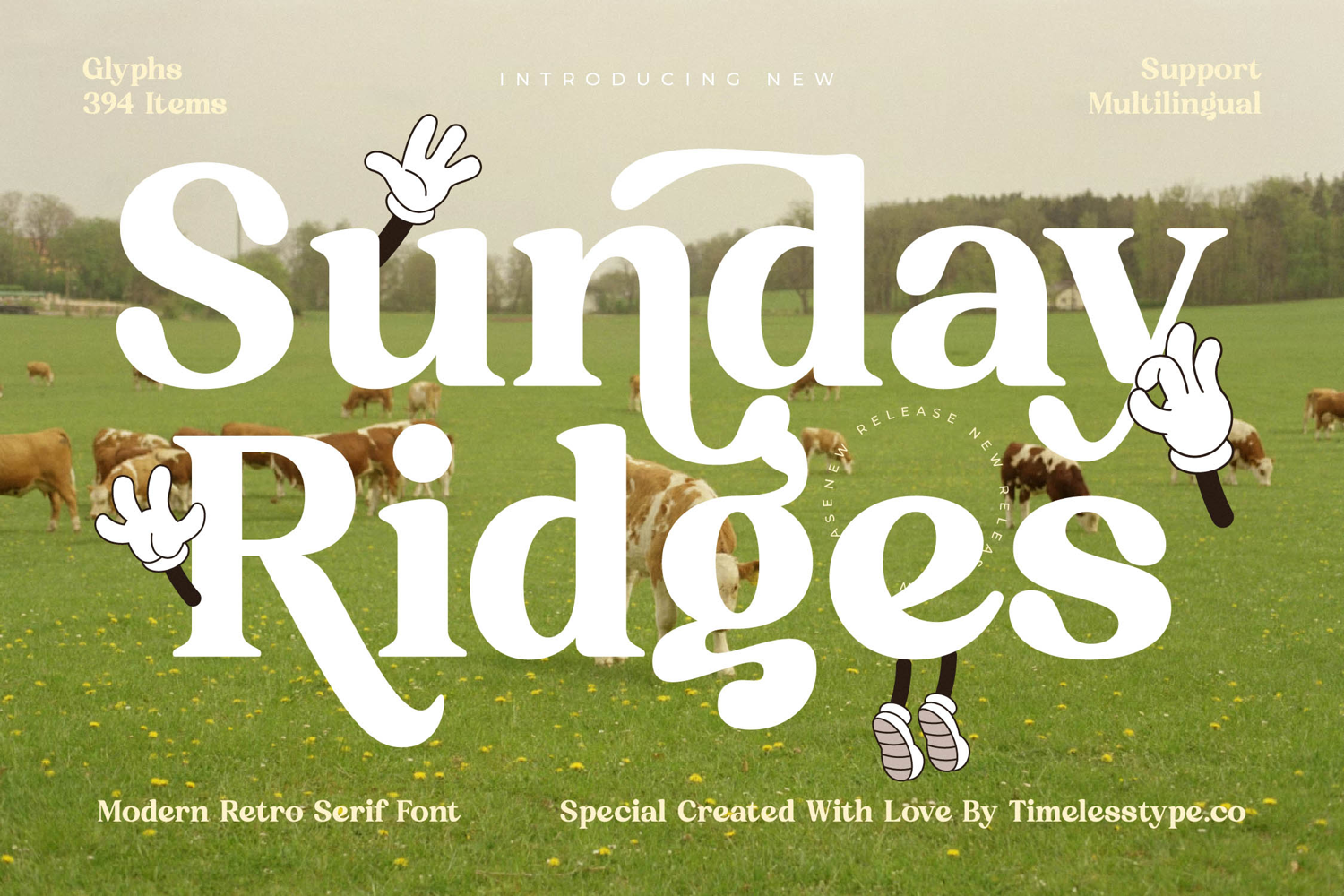
Sunday Ridges - Modern Retro Serif Font
Unleash a wave of nostalgic charm and contemporary elegance with Font Sunday Ridges - Modern Retro Serif Font Serif Display. This distinctive typeface masterfully blends the playful spirit of retro aesthetics with a sophisticated modern touch, making it an exceptional choice for designers seeking to create impactful visual narratives. Its bold presence and smoothly rounded serifs convey a sense of unique personality, ensuring your design truly stands out in a crowded market. Crafted with meticulous attention to detail, Font Sunday Ridges - Modern Retro Serif Font Serif Display boasts an inviting yet authoritative display presence. The generous curves and robust forms lend themselves beautifully to large headlines and prominent textual elements, guaranteeing maximum readability and artistic flair. This modern retro serif font offers unparalleled visual weight, providing a solid foundation for any creative project aiming for a memorable and engaging look. Expand your creative horizons and reach a global audience effortlessly. With its extensive multilingual support, Font Sunday Ridges - Modern Retro Serif Font Serif Display adapts seamlessly across global markets, making it incredibly versatile for international projects. This comprehensive language support ensures your message resonates clearly, transcending linguistic barriers while maintaining its unique retro display serif character. Perfectly poised to define luxury and creativity, Font Sunday Ridges - Modern Retro Serif Font Serif Display is ideal for a myriad of high-impact applications. It’s perfect for luxury branding, exclusive packaging design, sophisticated editorial layouts, compelling logo design, and captivating poster art. Elevate your brand identity and infuse your projects with a unique blend of heritage and contemporary style using this truly versatile and appealing font.